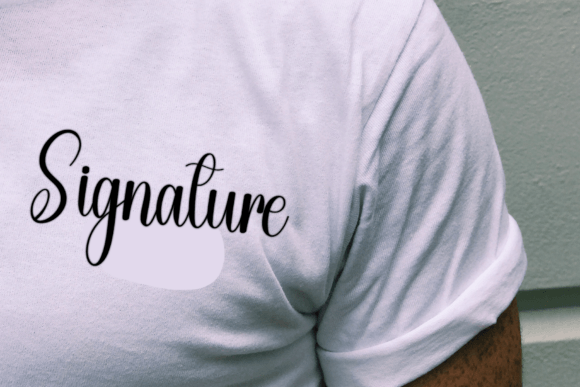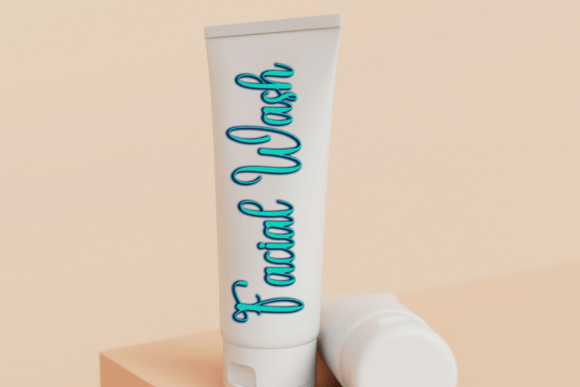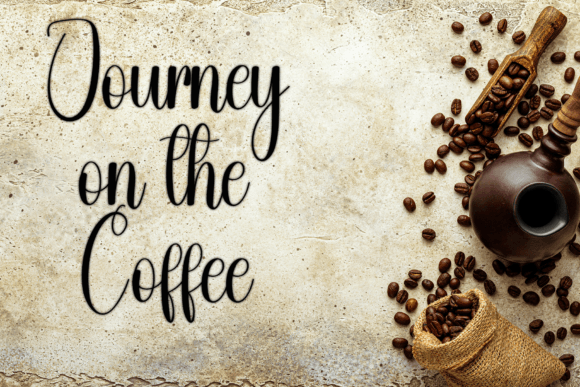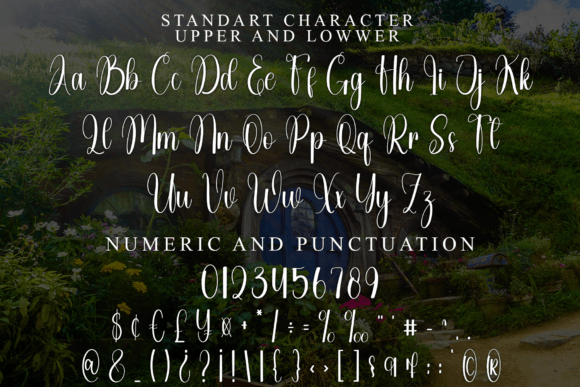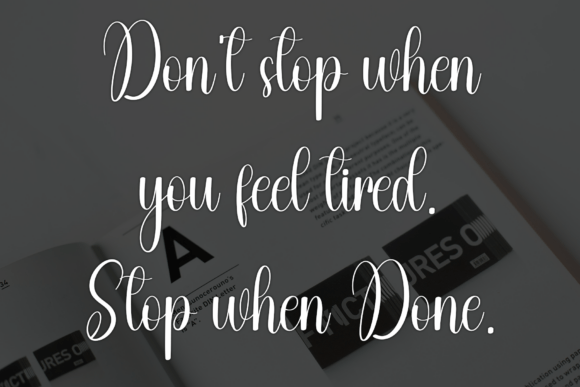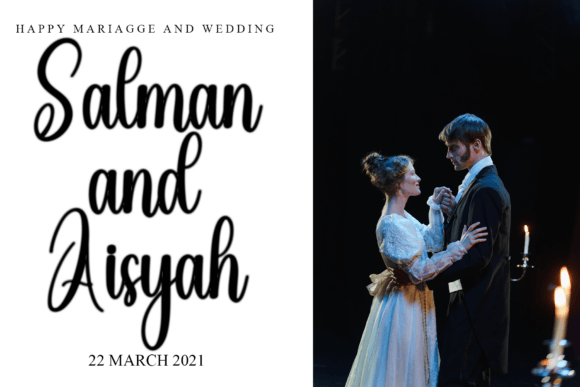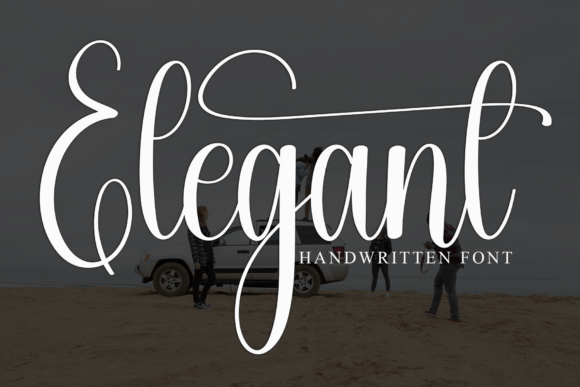
Unlock the Timeless Beauty of Elegant Typography
As a designer, there’s nothing quite like the thrill of bringing a project to life – the click of the mouse, the hum of the computer, and the instant gratification of seeing your vision take shape. But what makes a design truly special? For us, it’s the perfect balance of style, sophistication, and elegance. That’s why we’re excited to introduce you to the Elegant Font – a stunning, modern script inspired by the classic calligraphy of the past.
This beautifully crafted font is designed to elevate your projects with its impeccable form and contemporary atmosphere. With Elegant Font, you’ll be able to add a touch of sophistication to your designs, from elegant invitations to luxurious branding materials. And with its PUA encoding, you’ll have access to all the amazing glyphs and ligatures that will make your designs truly stand out.
Elegant Font Key Features
• Unique Characteristics: The Elegant Font boasts a unique blend of classic and modern elements, featuring elegant lines, subtle flourishes, and a refined aesthetic.
Elegant Font Review
At first glance, the Elegant Font seems like a promising addition to any design project. ✨ The font’s classic and sophisticated design lends itself well to a variety of applications, from corporate reports to high-end fashion branding.
• ✨ Elegant Font’s versatility: It’s suitable for a range of industries and styles, making it a great choice for designers who work with diverse clients.
• ✨ High-quality font rendering: The font’s crisp lines and smooth curves ensure that text looks sharp and well-rendered, even at small font sizes.
• ⚠️ Limited character set: Elegant Font only includes a basic set of characters, which may not be sufficient for designers who need to work with non-English text.
• ⚠️ Limited customization options: While the font itself is highly customizable, there are limited options for customizing the font’s behavior and appearance.
Overall, I’d say the Elegant Font is a solid choice for designers who value classic, sophisticated typography. While it has some limitations, its versatility and high-quality rendering make it a worthwhile addition to any design project.
Elegant Font: A Practical Application Guide
Tips: Use Elegant Font for headings and titles to add a touch of sophistication to your designs.
Tips: Use Elegant Font for text overlays and other design elements to add a touch of elegance.
Tips: Use Elegant Font for headings and titles to add a touch of sophistication to your presentations and documents.
Elegant Font is suitable for:
• Wedding invitations and stationery
• Business cards and marketing materials
• Photography captions and text overlays
Remember to use Elegant Font in conjunction with other design elements to create a cohesive and elegant look.